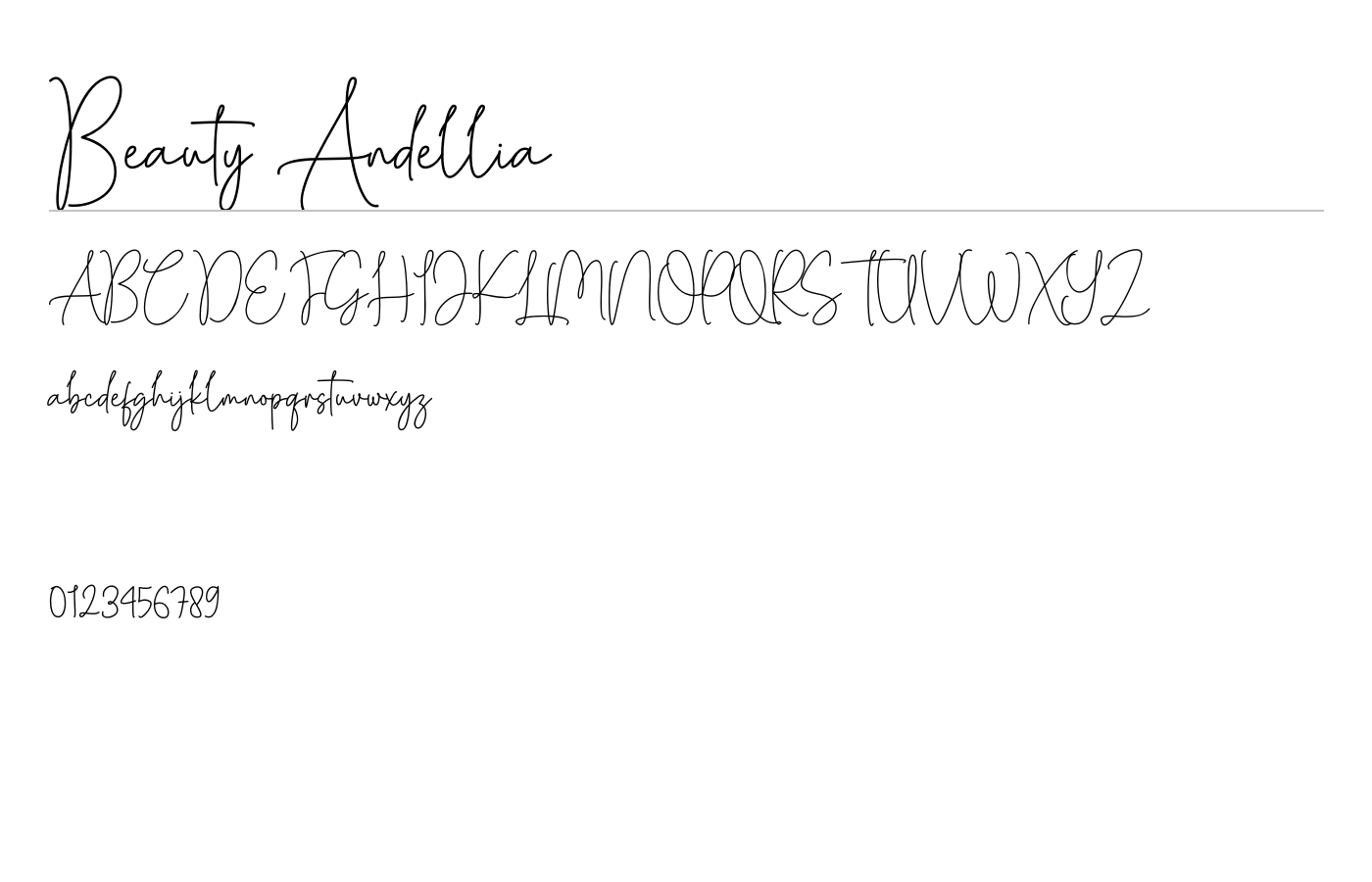
Beauty Andellia is a delicate, handwritten script font characterized by its thin, flowing strokes and elegant, airy letterforms. It conveys a sense of sophistication and charm, making it ideal for stylish branding, wedding invitations, and feminine editorial designs where a touch of graceful, personal flair is desired. This font works best in decorative contexts rather than body text due to its intricate and light appearance.
Beauty Andellia Font
About Beauty Andellia Font
| Font family | Beauty Andellia Font |